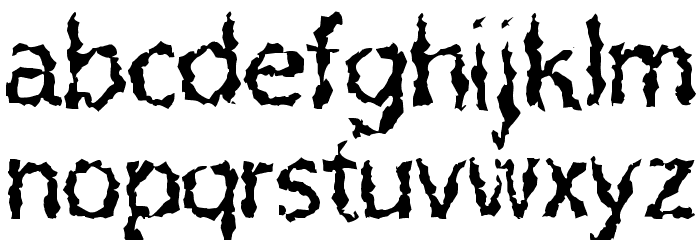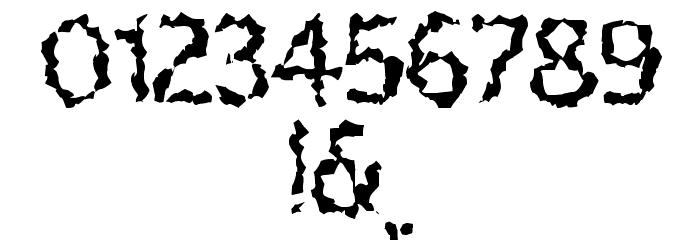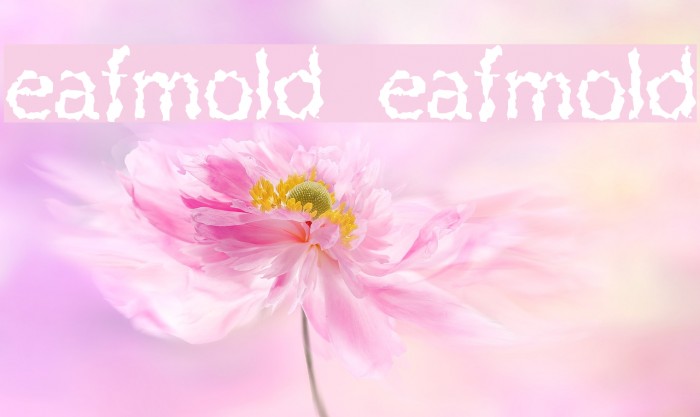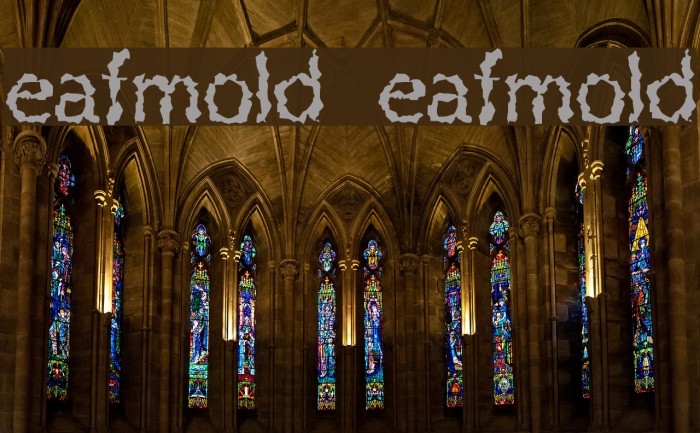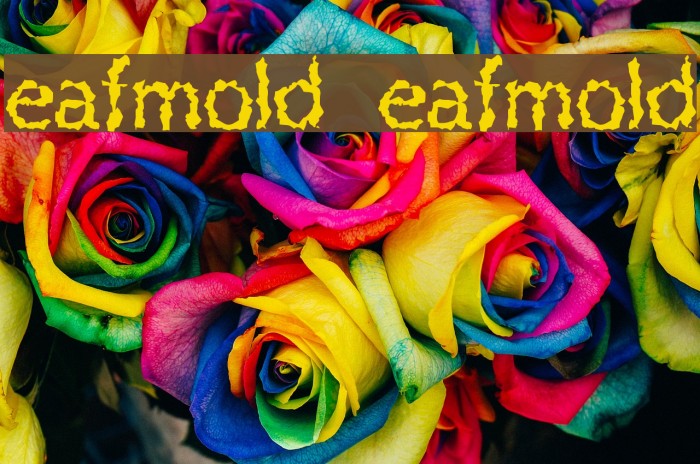
Leafmold Font
This font features a unique, organic design that mimics the irregular and textured appearance of decaying leaves. Each character is crafted with jagged edges and uneven strokes, giving it a natural and rustic feel. The font maintains a consistent baseline, yet the varying heights and widths of the letters add a dynamic and unpredictable quality. The numbers and special characters follow the same design principles, ensuring a cohesive look across all glyphs. This font is ideal for projects that require a natural or earthy aesthetic, such as environmental campaigns, nature-themed events, or artistic designs that seek to evoke a sense of the outdoors.
An organic, textured font with jagged edges, resembling decaying leaves.
- Proposed Projects: Ideal for nature-themed designs, environmental campaigns, and artistic projects.
- Use Case: Logos, Posters, Artistic Designs